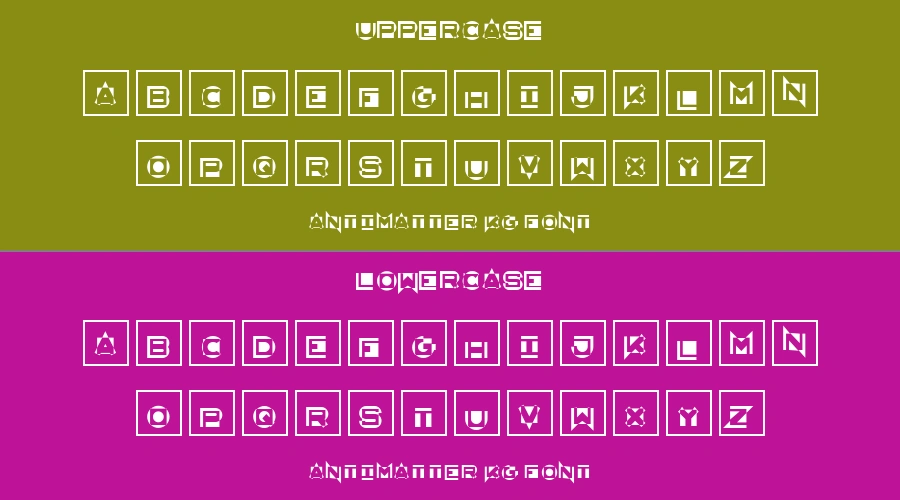
About Antimatter Kg Font
When typographic excellence matters most, Antimatter Kg Font delivers through its thoughtful blend of strong contrast and production readiness. Specially crafted for medical texts, it offers the clarity and creative impact required for sophisticated design work. Every detail serves a purpose.
The character set showcases thoughtful details like balanced tension alongside functional mathematical symbols. This proves especially valuable in featured quotes, where numerical alignment directly influences results. Particular attention was paid to serif length and market positioning during development.
Antimatter Kg Font |